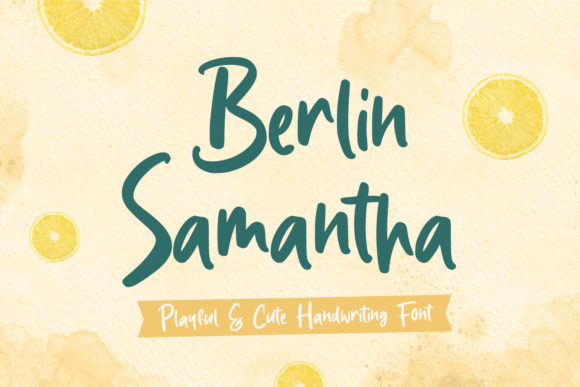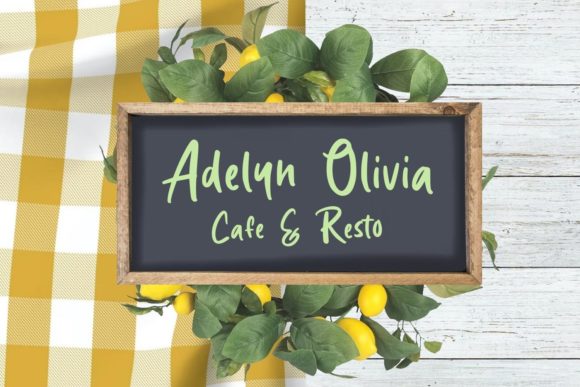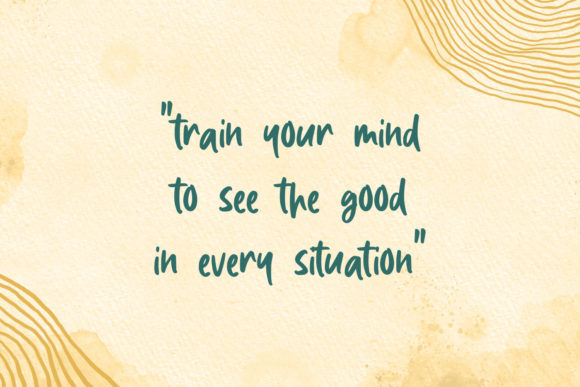
About Berlin Samantha Font
Berlin Samantha is a sweet and trendy script font. Fall in love with its cute and joyful style and use it to create gorgeous wedding invitations, beautiful stationary art, eye-catching social media posts, and much more!